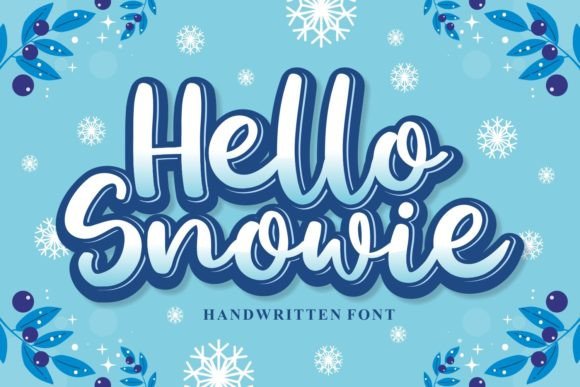
Introducing Hello Snowie Font, the ultimate solution for your modern website font needs. Designed by Keithzo (7NTypes), this script font is sure to captivate your audience with its whimsical, flowing handwriting style.
Whether you're looking to create a cozy winter-themed project or simply add a touch of charm to your website, Hello Snowie Font is the perfect choice. This font is not only versatile but also keyword-rich, making it the best choice for modern websites.
With its unique and eye-catching design, Hello Snowie Font will help your website stand out from the competition. Its flowing handwriting style evokes a sense of warmth and coziness, making it perfect for projects that require a personal touch.
Don't settle for a boring, generic font for your website. Let Hello Snowie Font add some personality and charm to your project. Its captivating design will leave a lasting impression on your audience, making it the perfect choice for those looking to make a statement.